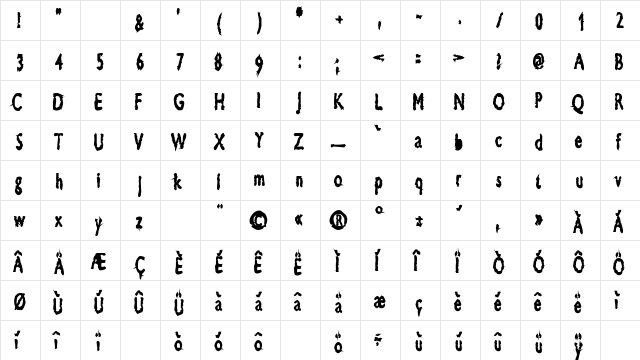
Blue Tone Two
Design Context for Blue Tone Typeface
Blue Tone is a composed and adaptable typeface that performs quietly and consistently across a wide range of design contexts.